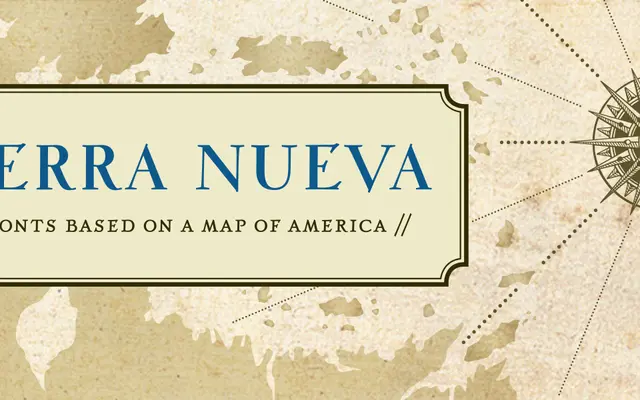
Tierra Nueva
A four-style family revived from the engraved lettering of a 1562 Diego Gutiérrez map of America, redrawn over six years by Sebastian Nagel.
Sebastian Nagel spent six years reworking the lettering found on a 1562 cartographic map by Diego Gutiérrez and Hieronymus Cock into a fully functional digital typeface. The result is a four-member family comprising regular, bold, italic and script styles, supported by nearly 3,700 characters covering Latin Extended ranges. An extensive OpenType feature set includes small caps, multiple figure sets, contextual alternates, localized forms, stylistic sets for arrows and historic variations, and embedded vector illustrations for full-family purchasers.
Derived from the engraved lettering on a 1562 map of America, the family blends display serif and script styles rooted in Renaissance cartographic engraving, making it a historical revival display family.